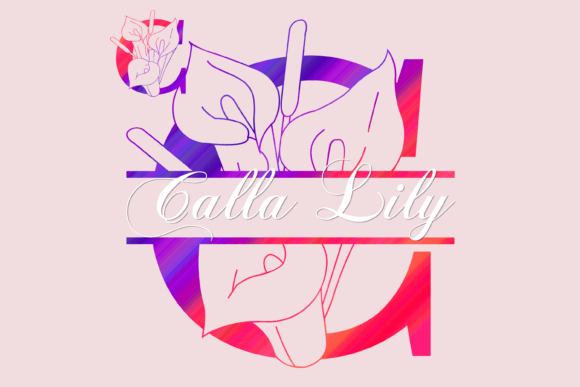
The Elegance of Calla Lily Split: A Decorative Font to Elevate Your Designs
I still remember the time I was working on a custom wedding invitation project, and my client asked for a font that would add a touch of elegance and sophistication. I scoured the internet, tried out numerous fonts, but nothing seemed quite right. That was until I stumbled upon the Calla Lily Split font. Its beautiful, flowing lines and duo styles (regular & split) instantly caught my attention, and I knew I had found the perfect fit. In this article, I’ll share my experience with this lovely font, its features, and how you can use it to elevate your designs.
A Closer Look at Calla Lily Split
Calla Lily Split is an elegant botanical decorative font that consists of two styles: regular and split. This font is ideal for adding a special decoration to your crafts, custom designs, DIY projects, or any creation that requires a lovely touch. The font’s unique design makes it perfect for a variety of applications, from wedding invitations and stationery to branding and packaging.
Here’s what I love about Calla Lily Split:
- ✨ Elegant and sophisticated design
- ✅ Easy to read and works well in various sizes
- 🌼 Beautiful duo styles (regular & split) for added versatility
- 🎨 Highly customizable with OpenType features and glyphs
While Calla Lily Split is an excellent font, there are a few small quirks to be aware of:
- 🤔 Some characters may not work well in very small sizes
- ⚠️ Limited availability of certain special characters
The Story Behind Calla Lily Split
Calla Lily Split was designed by a talented type designer who drew inspiration from the beauty of calla lilies. The font’s unique design and elegant lines make it perfect for a variety of applications. While the designer’s story may be fictional, the font’s charm and character are very real.
| What is Calla Lily Split? | Calla Lily Split is an elegant botanical decorative font consisting of duo styles (regular & split). |
| What can I use Calla Lily Split for? | You can use Calla Lily Split for custom designs, DIY crafts, wedding invitations, stationery, branding, and more. |
| Is Calla Lily Split easy to read? | Yes, Calla Lily Split is easy to read and works well in various sizes. |
| Does Calla Lily Split support OpenType features? | Yes, Calla Lily Split supports OpenType features, including stylistic alternates and glyphs. |